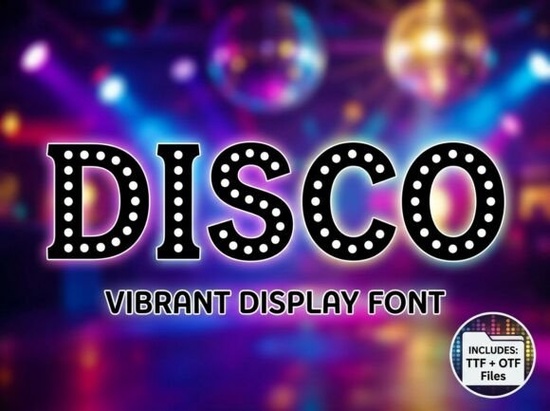
Disco Font is a standout choice for anyone looking to add a retro vibe to their design projects. This vibrant display font brings the energy of 1970s nightlife into modern layouts, making it perfect for a variety of creative applications. Whether you're designing party invitations, concert posters, or vintage-themed logos, Disco Font offers a unique visual style that commands attention.
The design of Disco Font is heavily influenced by classic marquee signage and dance club lighting. Its bold slab-serif structure features thick stems and high-contrast marquee bulb dots, creating a dynamic, pulsing effect. This detail makes the font ideal for projects that need to convey movement and excitement. The playful alignment of the internal dots adds a sense of motion, making your text stand out in a crowd.
If you're working on a project that requires a retro aesthetic, Disco Font can be a valuable addition to your design toolkit. It works well with other vintage-inspired elements, such as geometric shapes, neon colors, and patterned backgrounds. The font's versatility allows it to fit seamlessly into different design styles while maintaining its distinctive character.
What Makes Disco Font Unique?
One of the key features of Disco Font is its ability to capture the essence of retro nightlife. The font’s design evokes memories of disco balls, neon signs, and flashing lights, making it an excellent choice for themes that aim to recreate the 1970s atmosphere. This makes it particularly useful for event planners, designers, and small businesses looking to create a nostalgic feel in their marketing materials.
Another notable aspect of Disco Font is its readability. Despite its bold and eye-catching design, the font remains legible even at smaller sizes. This balance between style and functionality ensures that your message is clear while still making a strong visual impact. The font’s structure also allows for easy customization, so you can adjust it to suit different design needs without losing its original charm.
Best Uses for Disco Font
Disco Font is especially effective for designs that require a central visual element. For example, it works well as a headline for party invitations, where it can immediately draw attention and set the tone for the event. It also shines in music concert posters, where its energetic look complements the excitement of live performances.
Vintage nightclub logos benefit from the font’s bold and dynamic appearance, helping to establish a strong brand identity. Theatrical stage production banners can use Disco Font to create a sense of drama and movement, while high-energy merchandise headings can leverage its vibrant style to catch the eye of potential customers.
For those who enjoy print-on-demand projects, Disco Font can be a great asset. Its striking appearance makes it ideal for t-shirts, mugs, and other products that need a memorable design. The font’s retro feel also appeals to collectors and fans of 1970s culture, expanding its potential audience.
Whether you're a designer, crafter, or small business owner, Disco Font provides a powerful way to express creativity through typography. Its unique blend of style and functionality makes it a must-have for anyone looking to add a retro flair to their work.